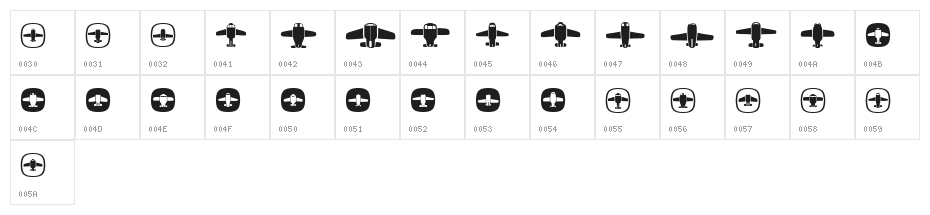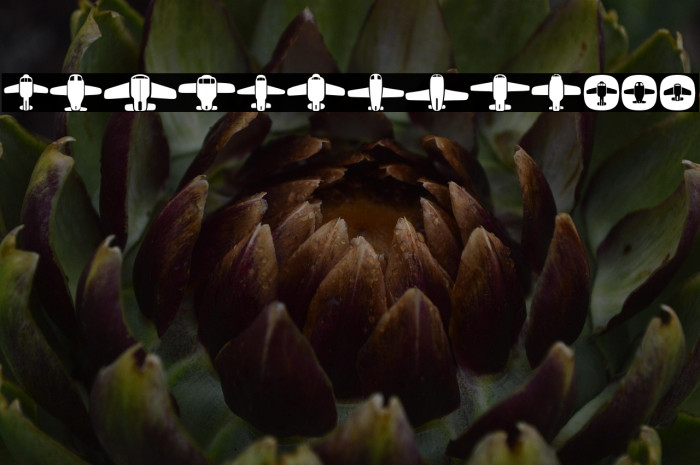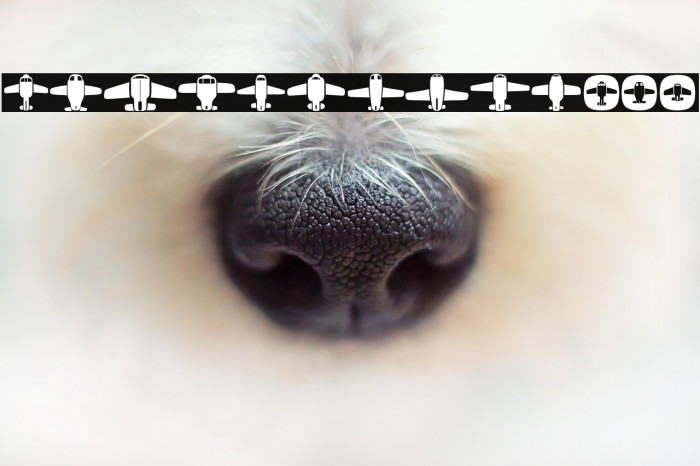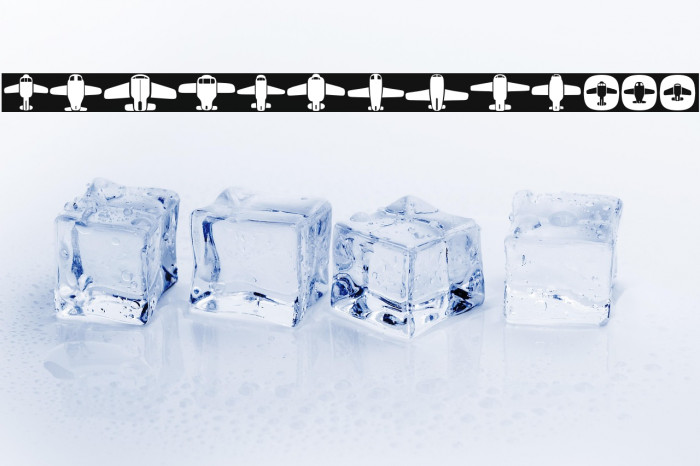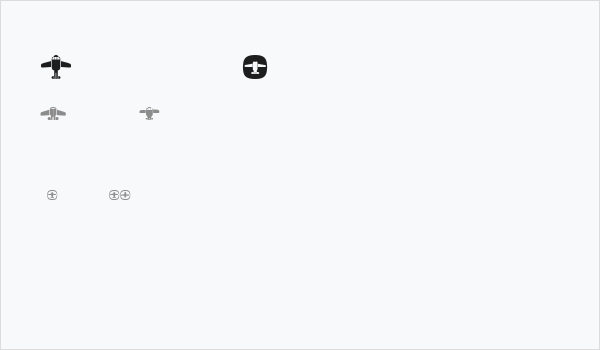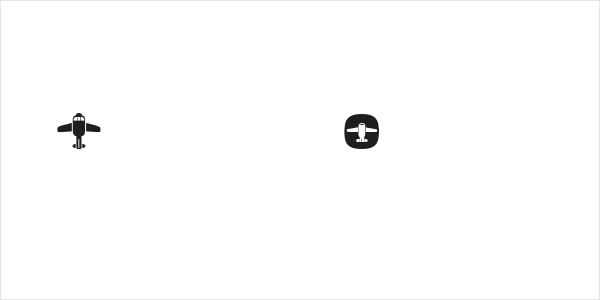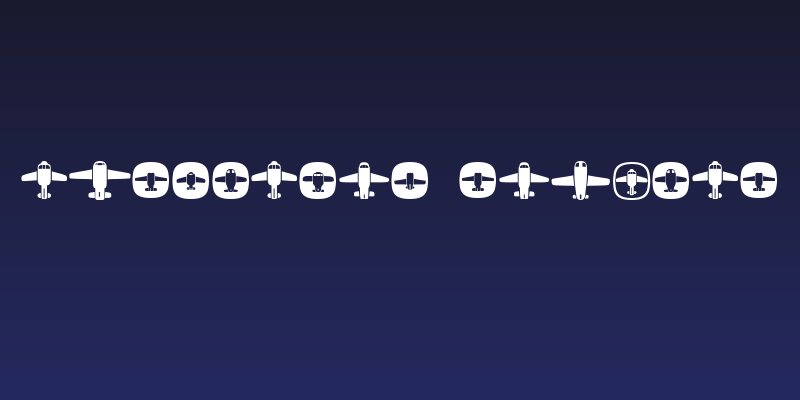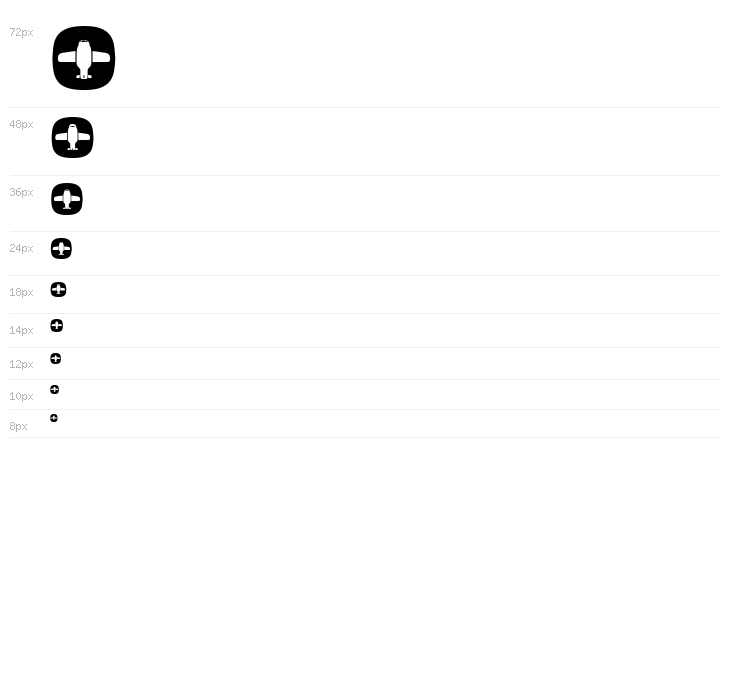
Airplanes Regular Font
Airplanes Regular Description
This unique font features stylized airplane silhouettes as characters, offering a playful and thematic design. Each character is represented by a different airplane icon, providing a distinct and cohesive visual theme. The font is highly decorative, making it ideal for projects that require a strong visual impact. The characters are enclosed in rounded squares, enhancing their visibility and adding a uniform structure to the overall design. This font is not suitable for body text due to its illustrative nature but excels in creative and thematic applications.
| Use Case | Logos, Headlines, Thematic Designs |
| Proposed Projects | Perfect for aviation-themed posters, children's books, travel brochures, and creative branding projects. |